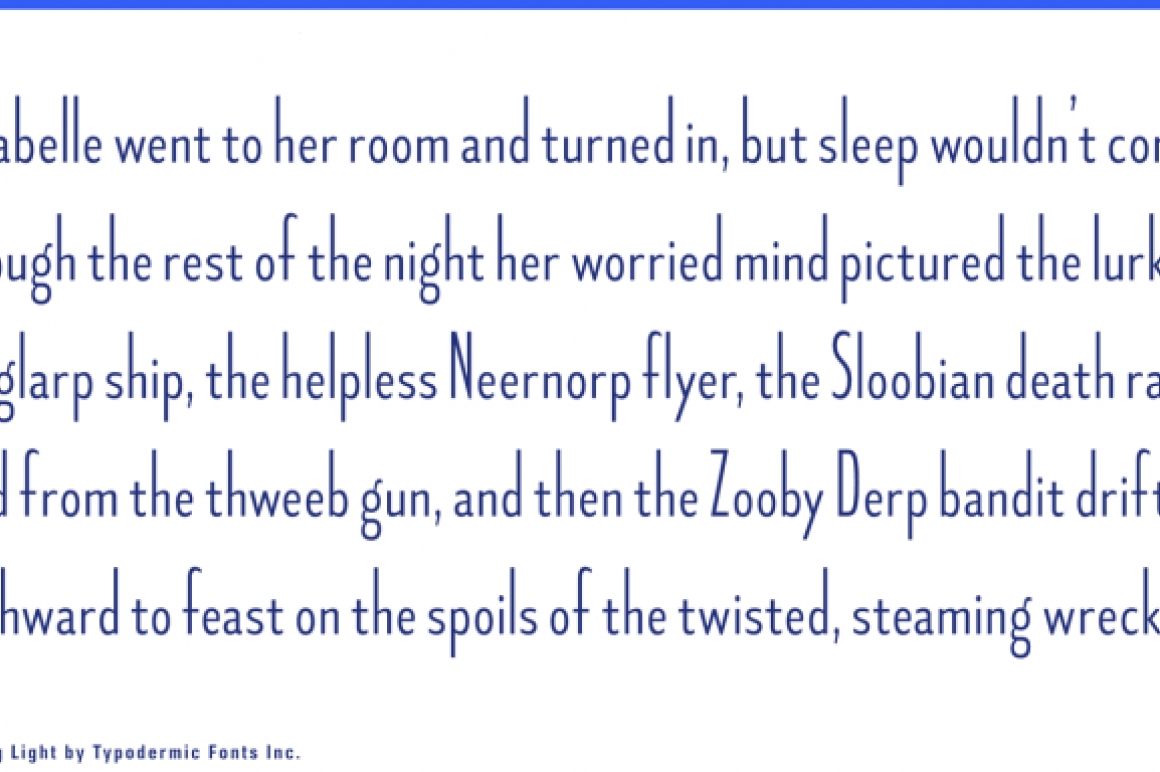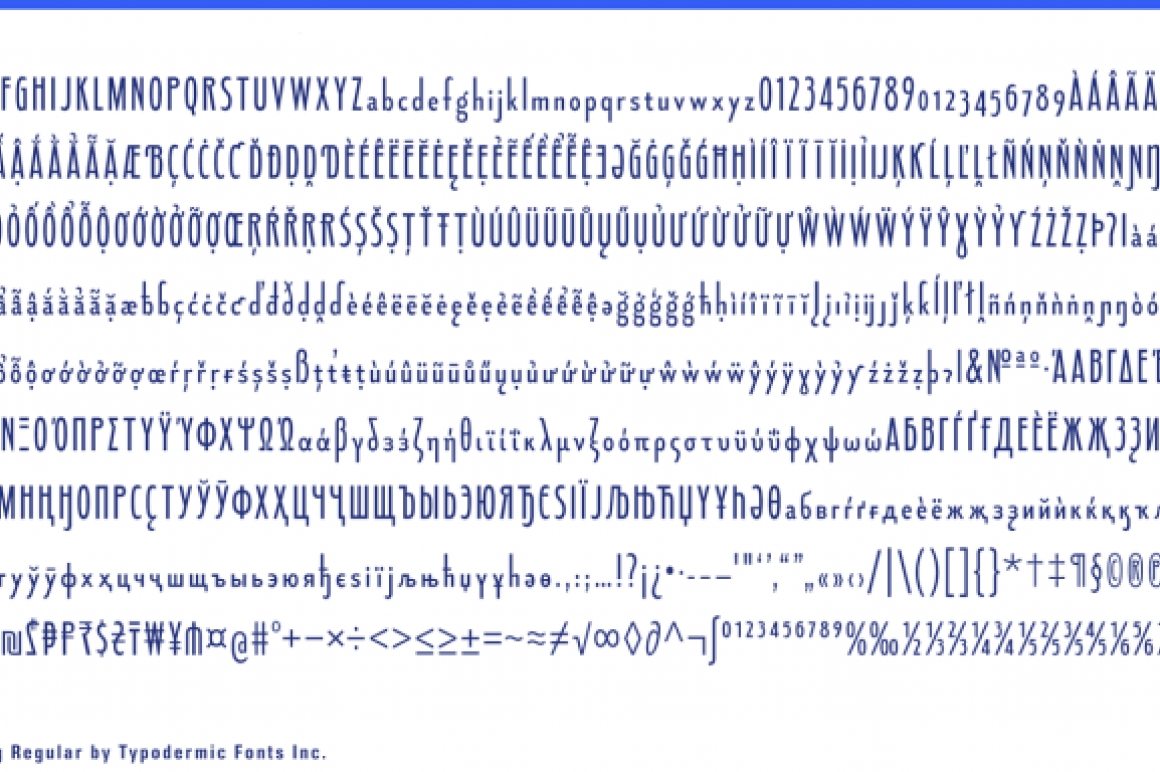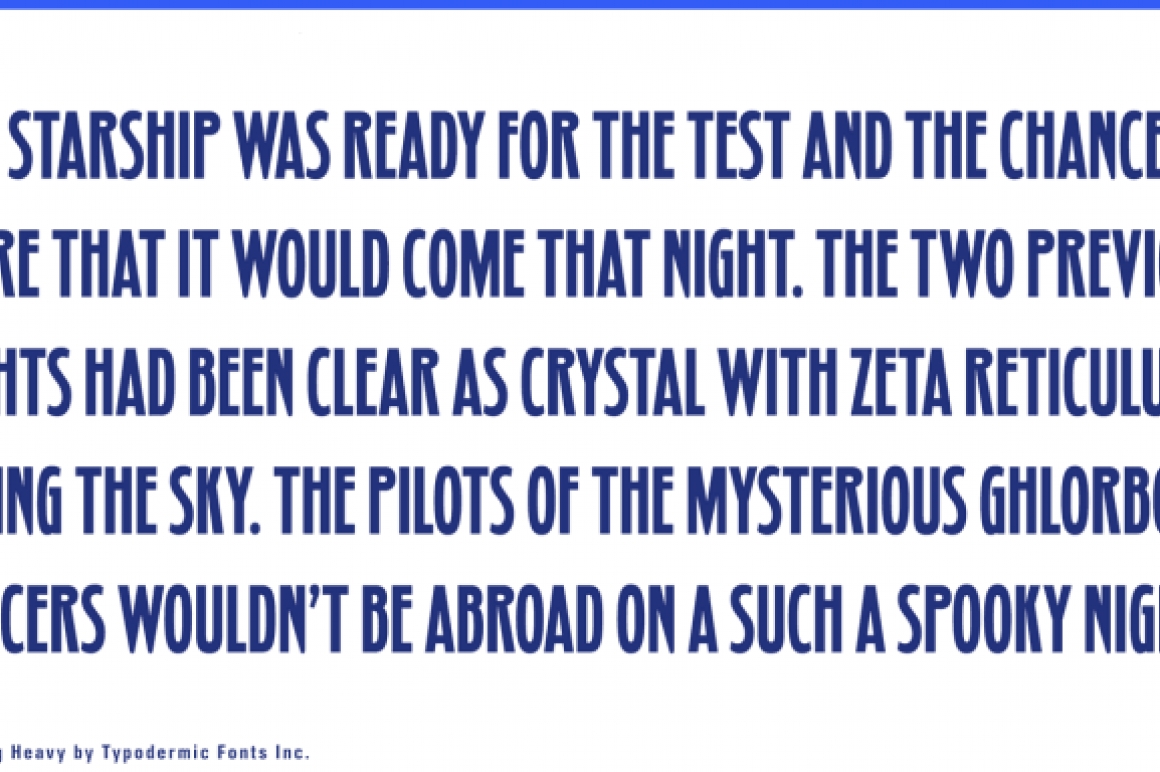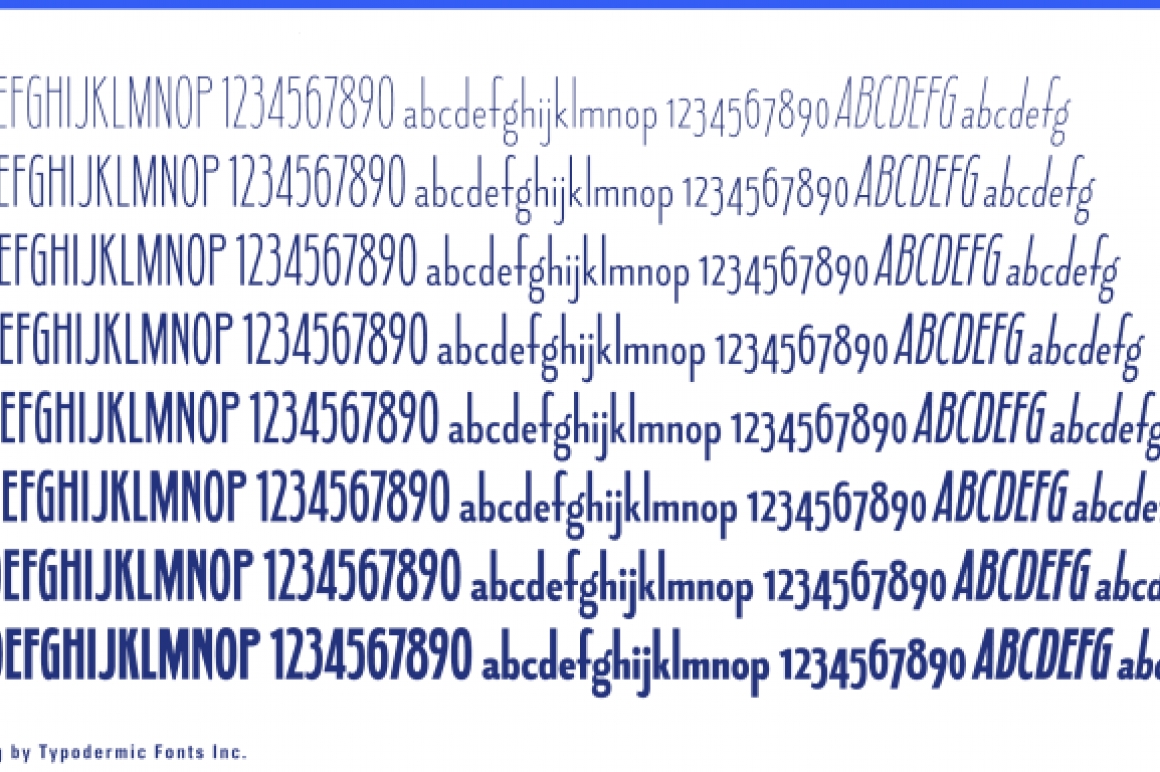
Fledgling
Fledgling is a compact, high waist, low x-height sans-serif typeface in 8 weights and obliques. OpenType features include numeric ordinals, fractions and old-style numerals. Mathematical symbols, monetary symbols and combining diacritical marks are plentiful. Fledgling supports Greek, Vietnamese, Cyrillic and most Latin based languages. The desktop license for Fledgling Semi-Bold is free.